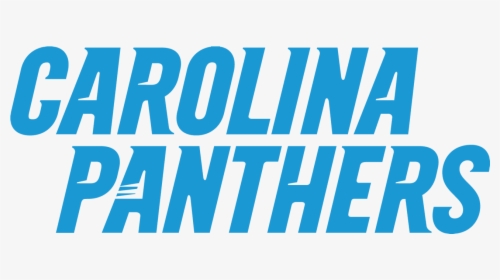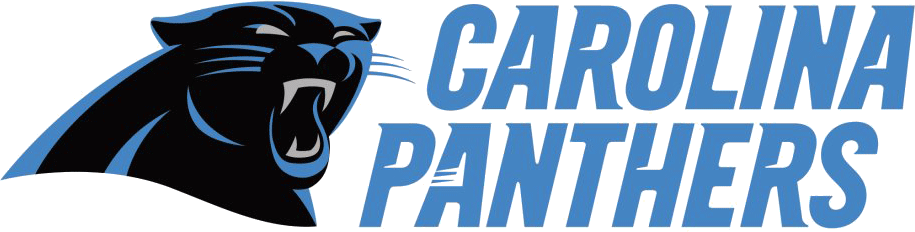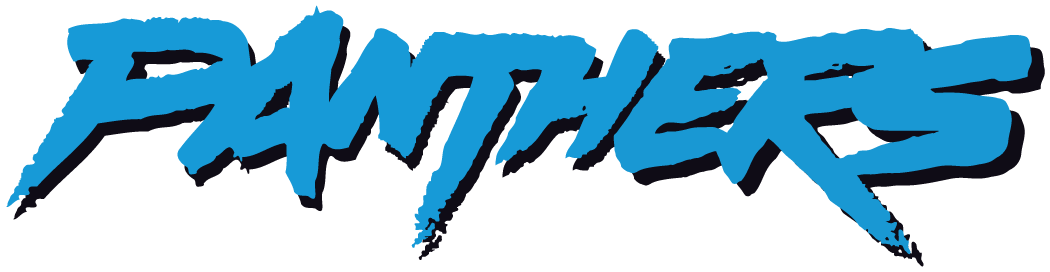
Carolina panthers font dafont. 18,248 downloads (1 yesterday) free for personal use. Looks kinda like the baywatch font. I know it’s copyrighted so it won’t be online anywhere, but i’m hoping someone in the sub can hook me up.
Starting with 2012, the carolina panthers have changed their logo and logotype to give off a more aggressive and contemporary look using a 3d design style. 3d (762) architecture (15) brandname (2249) bubble style (104) celtic (109) creepy. 1 to 15 of 16 results.
(6 days ago) search results for nfl carolina panthers font, free downloads of nfl carolina panthers fonts at fonts101.com. Meaning and history born in the middle of the 1990s, the carolina panthers football club didn’t spend much time looking for its perfect graphical signifier and got to the point from the first attempt. Search results for carolina panthers font, free downloads of carolina panthers fonts at fonts101.com.